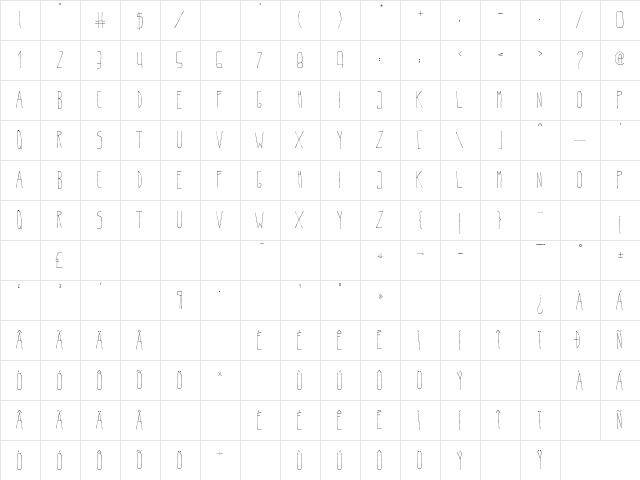
Belta Light Light
| Foundry | Julia Martinez Diana, Antipixel |
| Designer | Julia Martinez Diana, Antipixel |
Design Context for Belta Light Typeface
Belta Light takes a measured approach to typography — its balanced proportions and neutral character make it a reliable workhorse for both digital and print work. Its slender proportions lend an understated elegance to any composition.
Dating back to 2012, this typeface is available in OpenType (OTF) format.